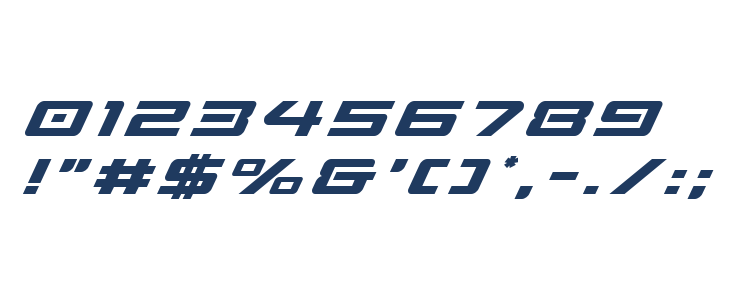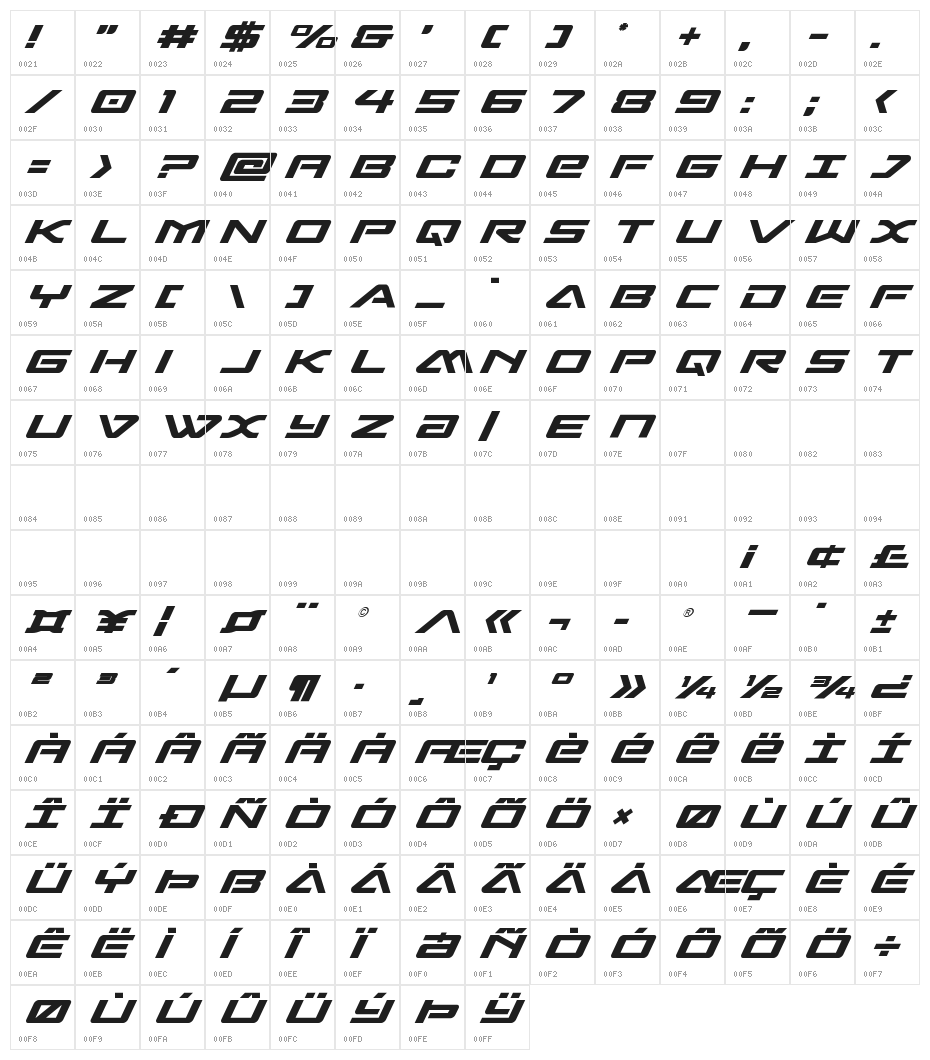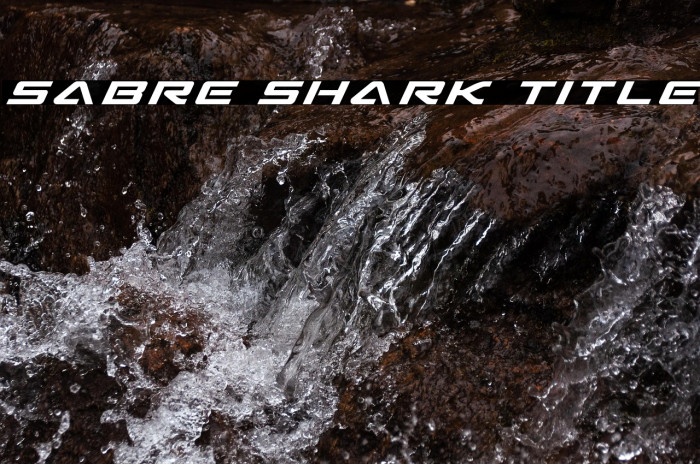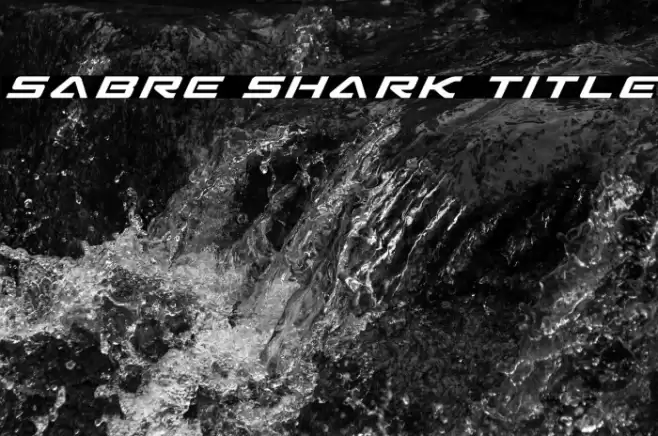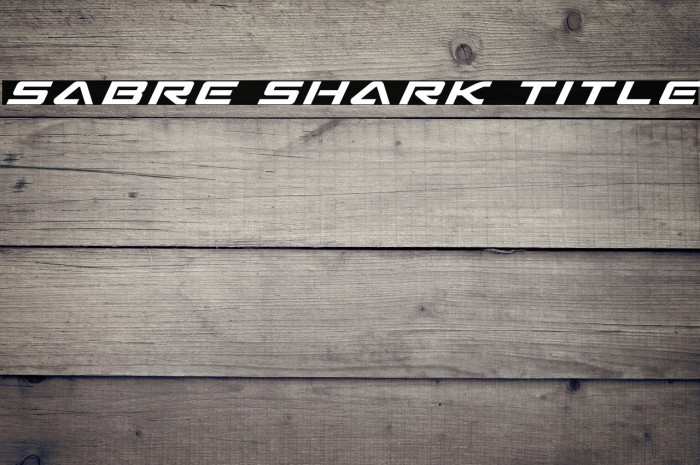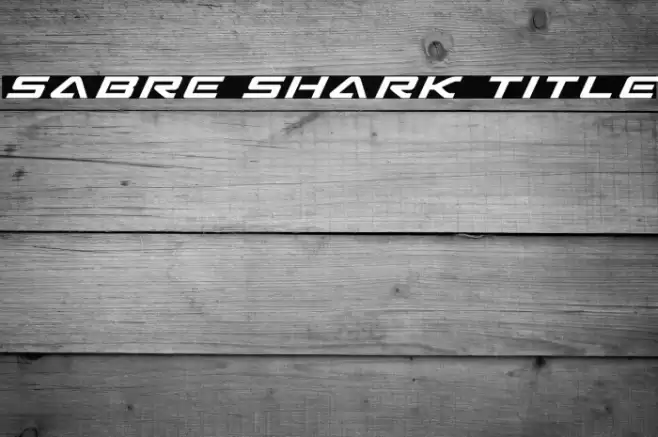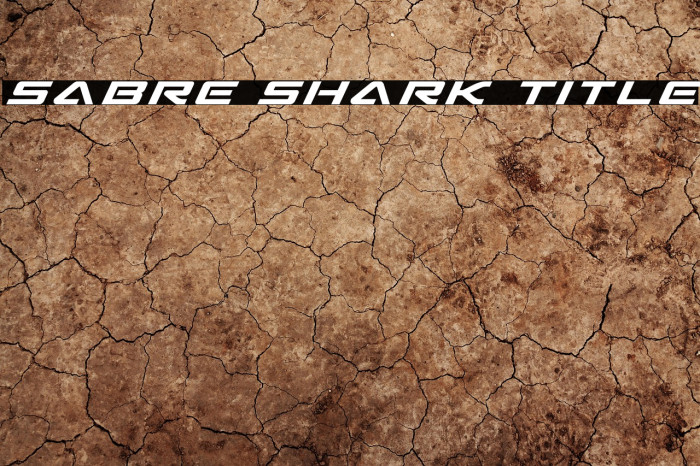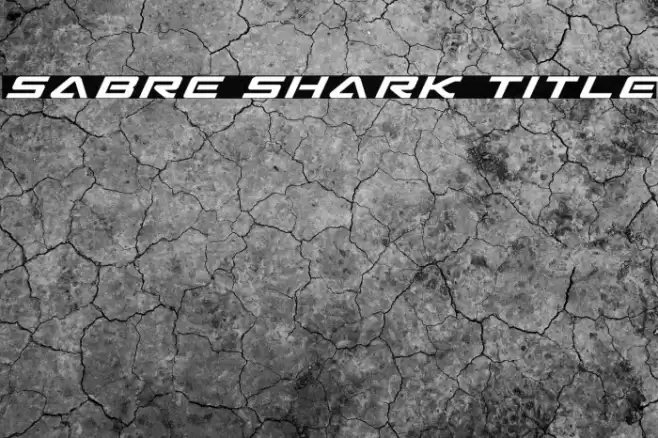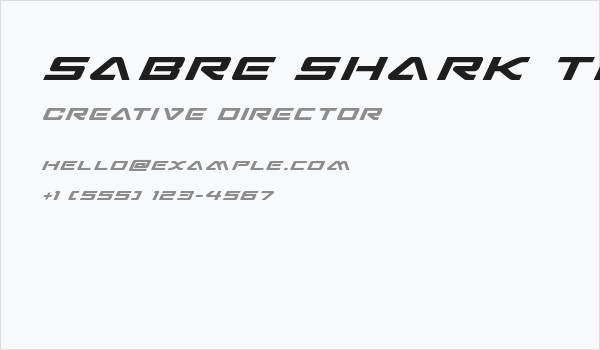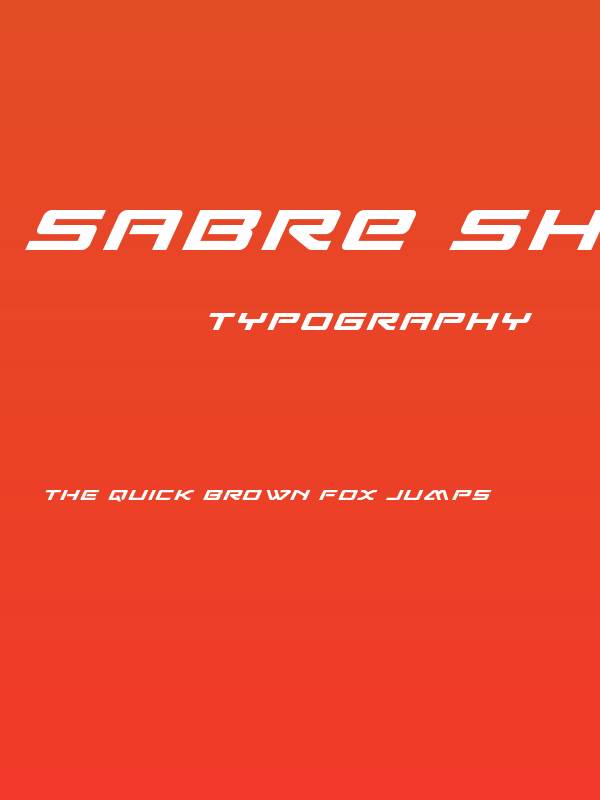
Sabre Shark Title Font
Sabre Shark Title Description
This font features a futuristic and angular design, characterized by sharp edges and a dynamic slant that gives it a sense of motion and speed. The uppercase letters are bold and geometric, with a consistent slant that adds to the modern aesthetic. The lowercase letters maintain the same angular style, ensuring uniformity across the typeface. Numbers are equally bold and follow the same design principles, making them stand out. Special characters are designed to match the overall theme, providing a cohesive look. This font is ideal for projects that require a modern, tech-inspired appearance.